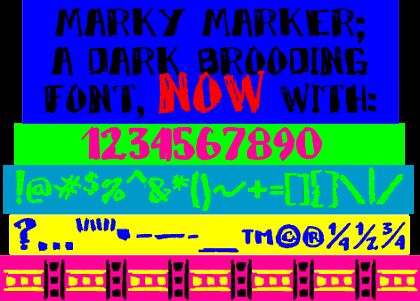
MarkyMarker
Marky Marker is a bold, script-style font that exudes a raw, edgy aesthetic. Designed by the deFaced foundry, this marker-inspired typeface boasts a dynamic and unconventional appearance, with its uneven strokes and distressed edges creating a distinct "trash" style.
The font's expressive, hand-drawn quality lends itself well to a wide range of applications, from gritty branding and packaging design to eye-catching typography in editorial layouts. Its bold weight and striking presence make it an impactful choice for headings, titles, and other display elements that demand attention.